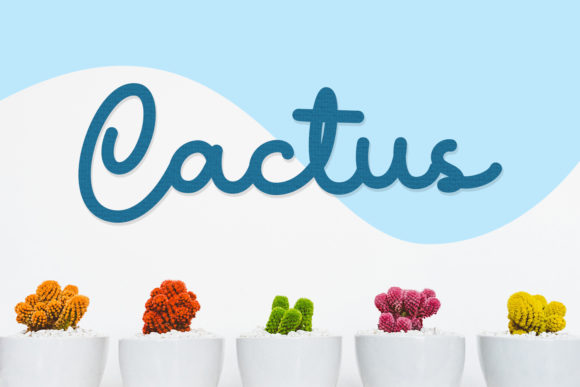
Gulali Script Font
db-ku.com - Script & Handwritten -- The Gulali is a classy script font. It has an elegant style and is perfect for branding and lettering designs.